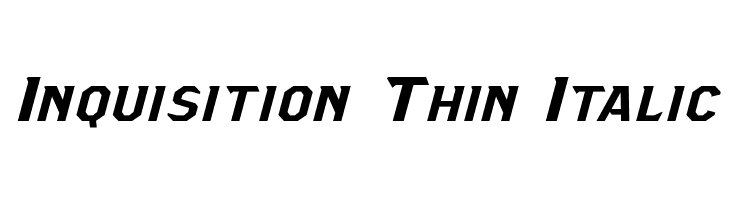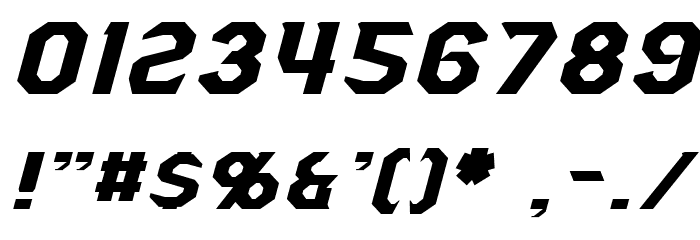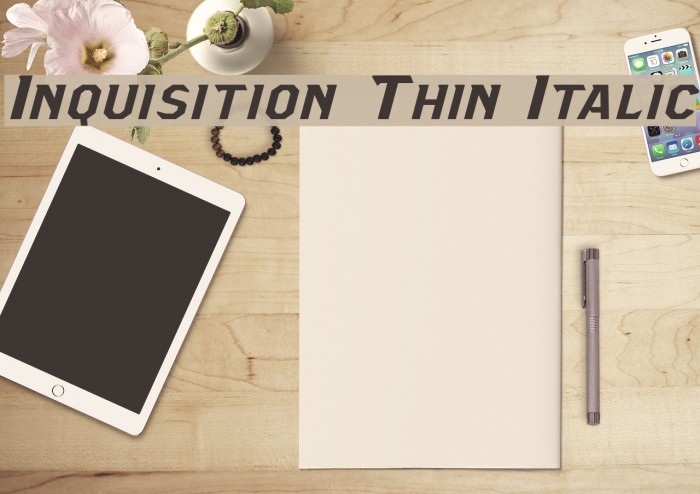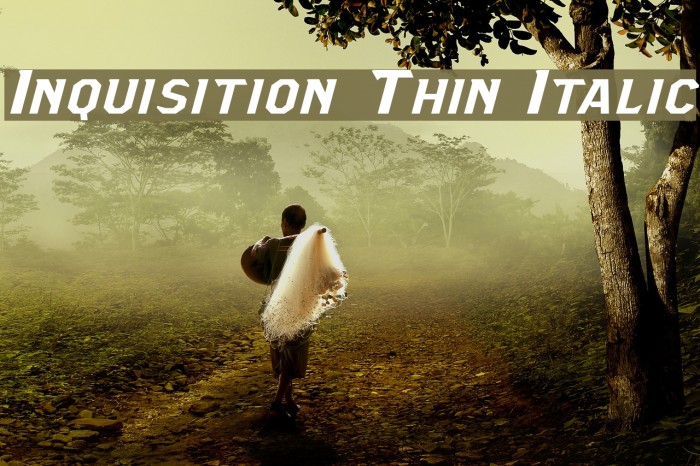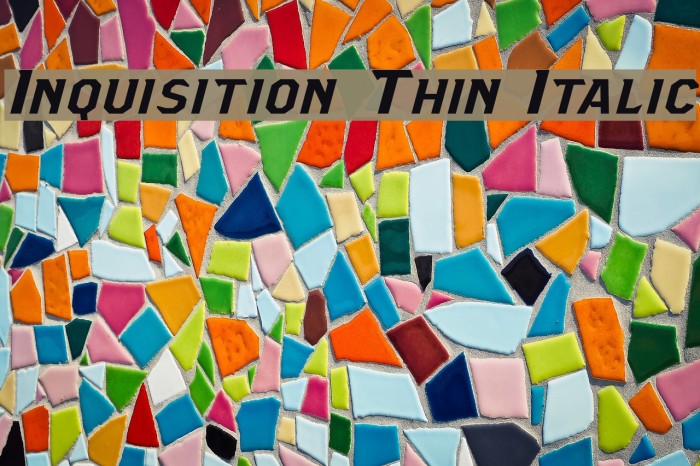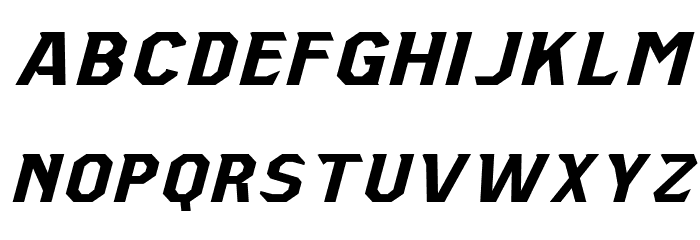
Inquisition Thin Italic Font
This font features a bold and dynamic style with a distinct italic slant, giving it a sense of movement and urgency. The characters are angular with sharp edges, creating a strong visual impact. The uppercase and lowercase letters maintain a consistent height, contributing to a uniform appearance. The numbers and special characters follow the same angular design, ensuring cohesion across all elements. This font's unique style makes it suitable for projects that require a modern and edgy look.
A bold, angular italic font with a dynamic and modern style.
• Proposed Projects: Ideal for branding, posters, video game graphics, and any project needing a bold, modern aesthetic.
• Category: Decorative/Display
• Bold: Yes
• Italic: Yes
• Weight: Bold
• Width: Normal
• Character Spacing: Normal
• Contrast: Medium
• Overall Style: Modern
• Use Case: Headlines, Logos